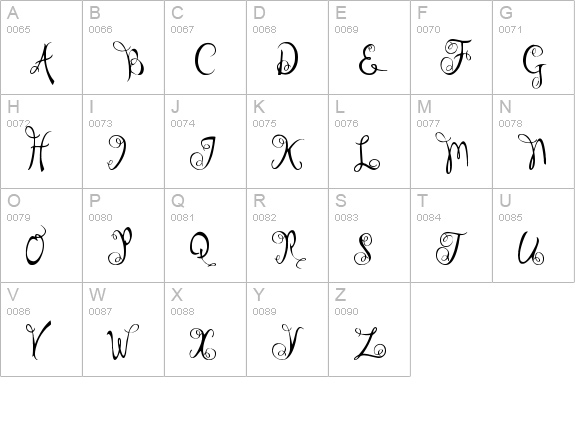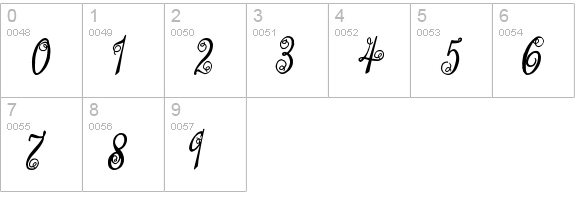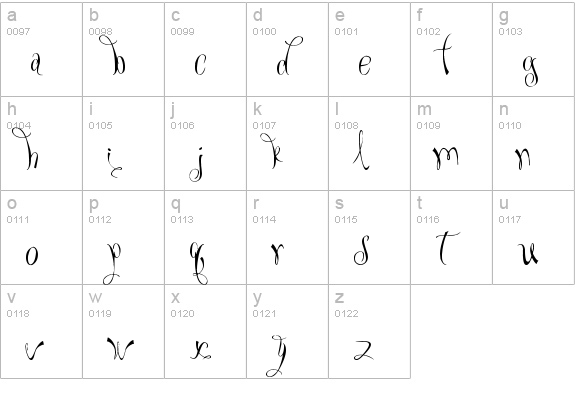
I'm Bored Font Details
Below you can preview I'm Bored in uppercase [A-Z], lowercase [a-z] and numbers [0-9]. You can also read the author's notes and license information before downloading.
Introducing the captivating and versatile I'm Bored font! This unique typeface is sure to spice up your design projects with its playful yet modern aesthetic. Whether you're designing a poster, logo, or social media graphic, I'm Bored font will add a touch of creativity and whimsy. Best of all, this font is completely free to download at FontsMarket.com! With its wide range of characters and stylish flourishes, I'm Bored font offers endless possibilities for expressing your creativity. Don't miss out on this fantastic free font – download it today and start adding a touch of fun to your designs!